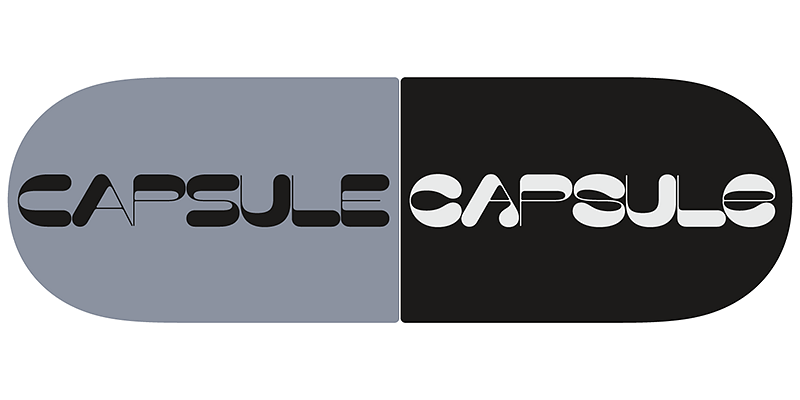
Capsule Font Free Download is a modern and minimal sans-serif typeface featuring rounded corners and a clean, geometric design. With its soft, friendly curves and futuristic appeal, Capsule is perfect for tech branding, app interfaces, packaging, lifestyle products, and contemporary editorial layouts.
Capsule’s smooth, pill-shaped forms give it a sleek and approachable character, making it ideal for both display text and short paragraphs. Whether you’re working on a startup identity or a modern product label, this font adds clarity and style with a distinctly modern edge.